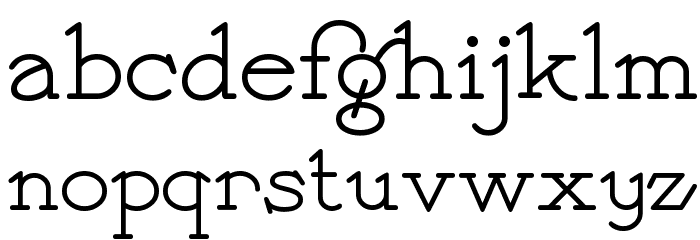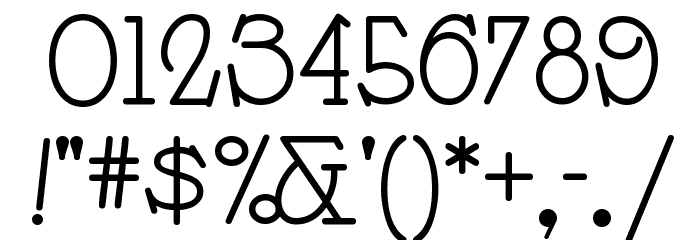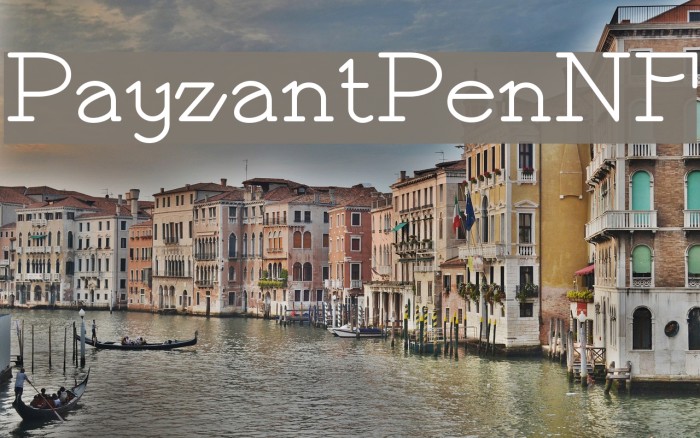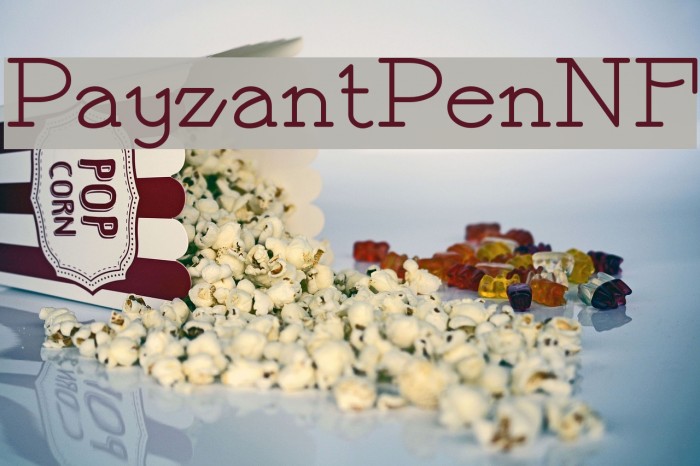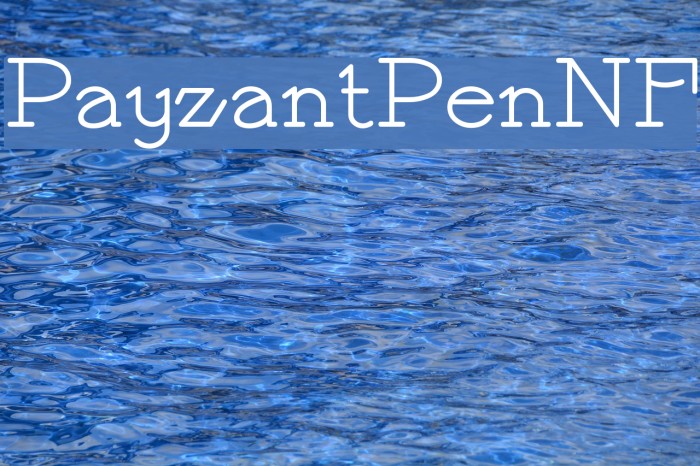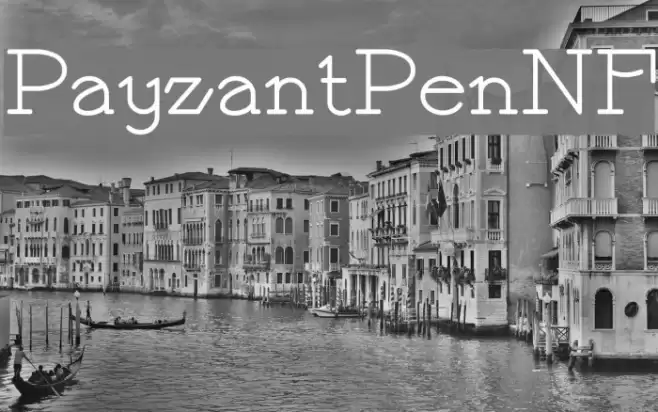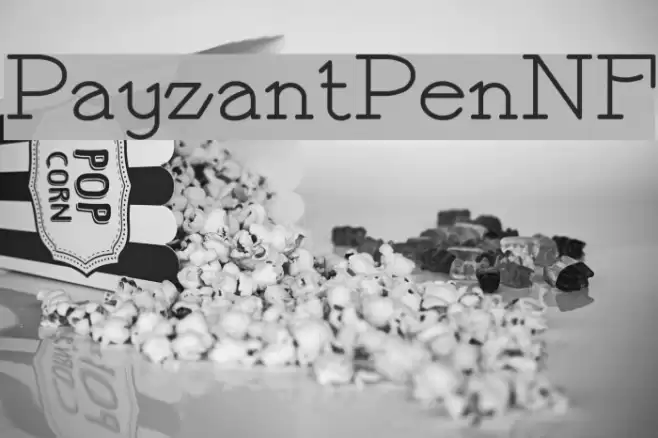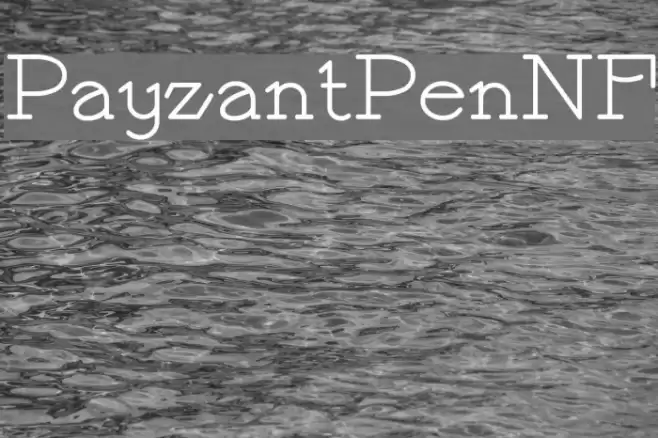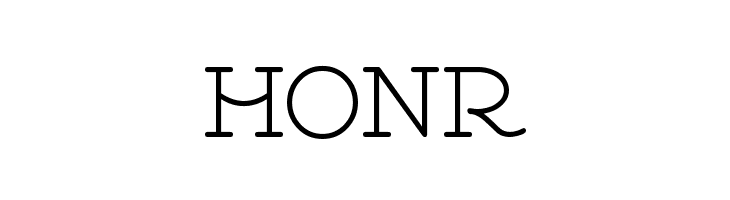
PayzantPenNF Font
This font features a unique blend of classic and modern elements, characterized by its elegant and slightly whimsical design. The uppercase letters exhibit a distinct flair with subtle curves and sharp angles, creating a sophisticated yet approachable appearance. The lowercase letters maintain a consistent style, with rounded forms and a playful touch, particularly noticeable in characters like 'g' and 'y'. The numerals are bold and clear, ensuring readability while maintaining the font's overall aesthetic. Special characters are thoughtfully designed, integrating seamlessly with the alphabetic characters. This font's versatility makes it suitable for a variety of applications, from formal invitations to creative branding projects.
A sophisticated font with a blend of classic and modern elements, featuring elegant curves and playful details.
- Proposed Projects: Ideal for wedding invitations, branding, logo design, and editorial layouts.
- Overall Style: Classic
- Use Case: Headlines, Logos, Invitations